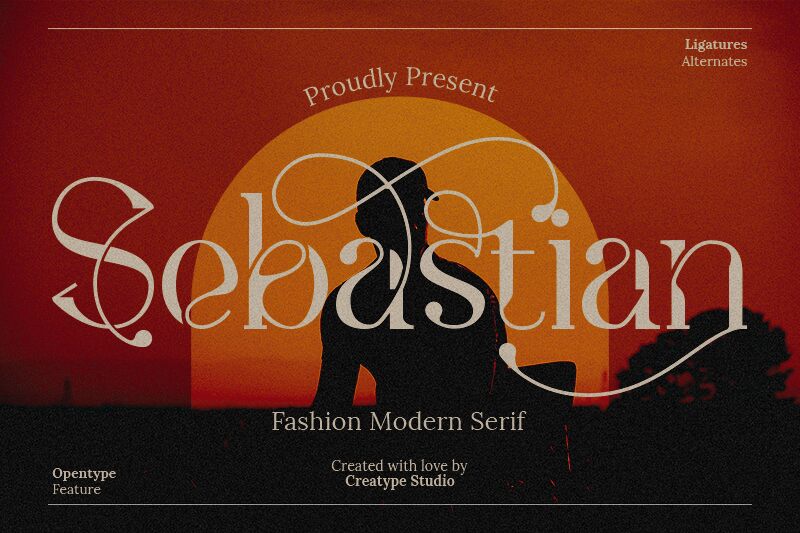
Sebastian Regular
Sebastian font, designed by Creatype Studio, exemplifies elegance and sophistication in its crisp, classic design. Delicate curves and artistic flair characterize this formal ornamental font, making it a perfect choice when communicating luxury and class. Find your perfect balance of expressiveness and readability with this incredible display of letters free for use.